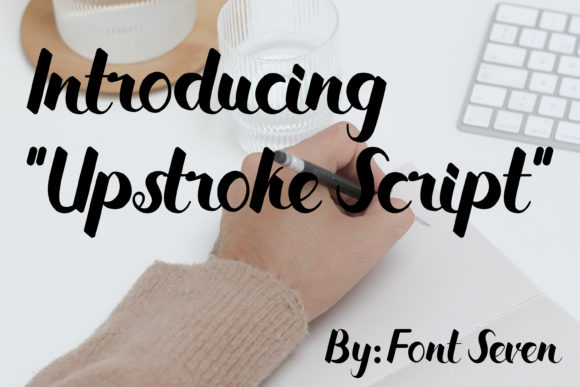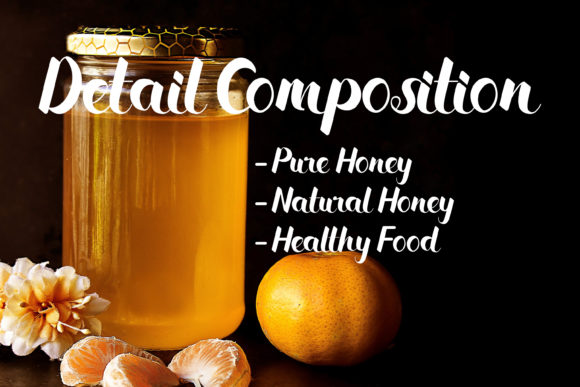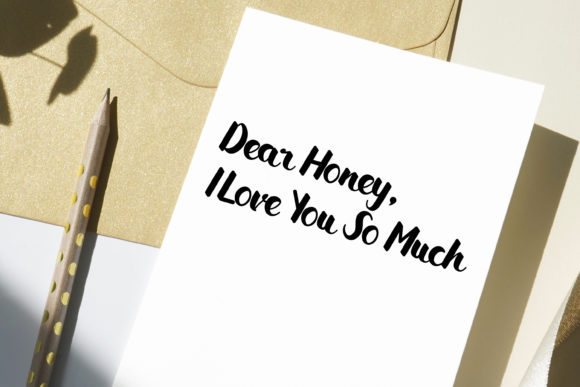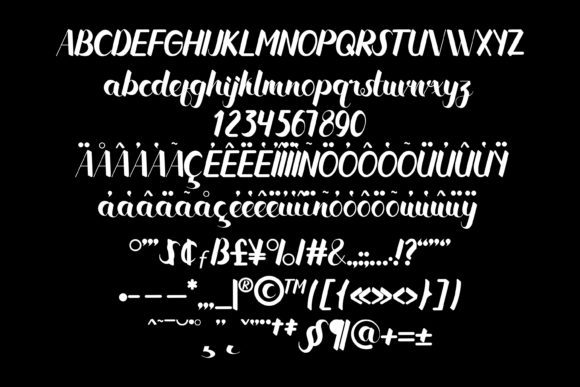
About Upstroke Script Font
Upstroke Script is a lovely and timeless handwritten font. It is the best choice for creating eye catching logos, branding and quotes. Every letter has a unique and beautiful touch, which will make your design come alive!